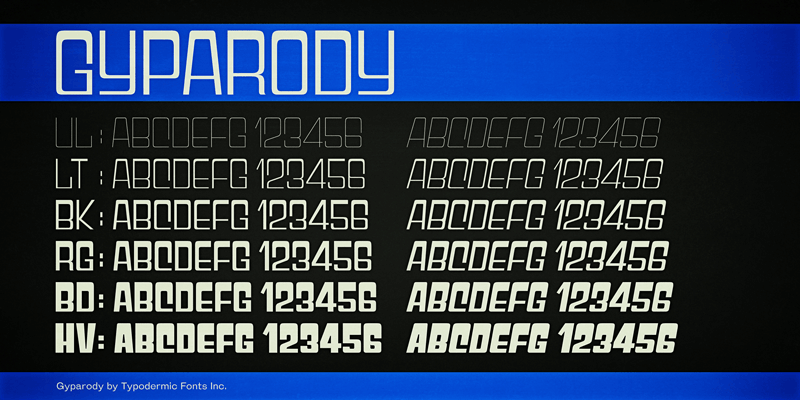
Gyparody Regular was created in 2000. A decade later, a new version and full Gyparody family has been released. This version sticks more closely to the design of the original font on which Gyparody was based: a late 1960s font called Anonymous. An alternate X and Y are available as OpenType stylistic alternates. These fonts include a license that allows free commercial use: sometimes referred to as a desktop license. This allows you to install the fonts on a computer and use them to create posters, web graphics, game graphics, t-shirts, videos, signs, logos and more. Read the license agreement for details. If you'd like to embed these fonts in an app, ebook, on the web or anything that's not covered by the desktop license agreement, visit the link below. You'll find distributors who offer different types of licenses or you can contact me for help. http://typodermicfonts.com/gyparody/ These free fonts are part of a larger font family. Check out the rest of the family through the link above. |